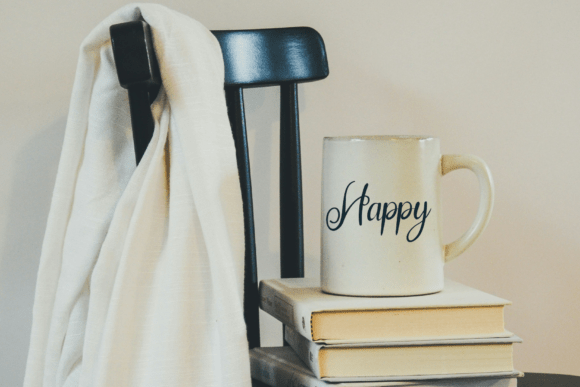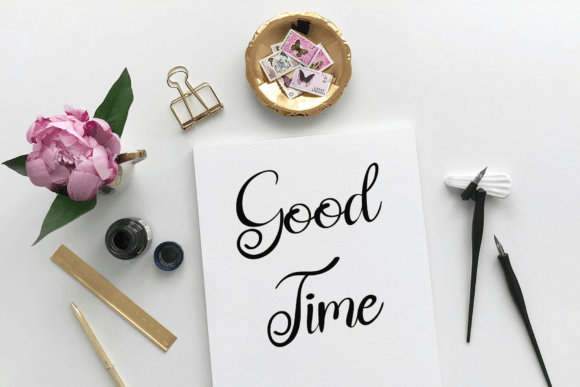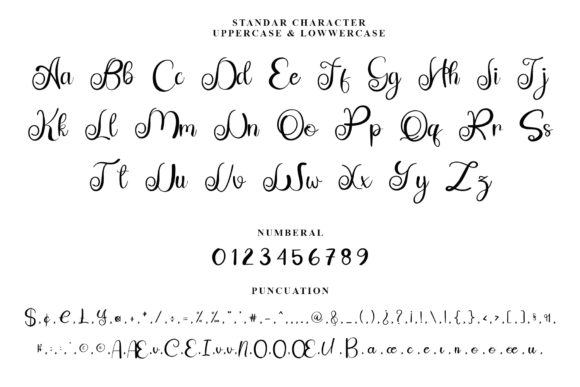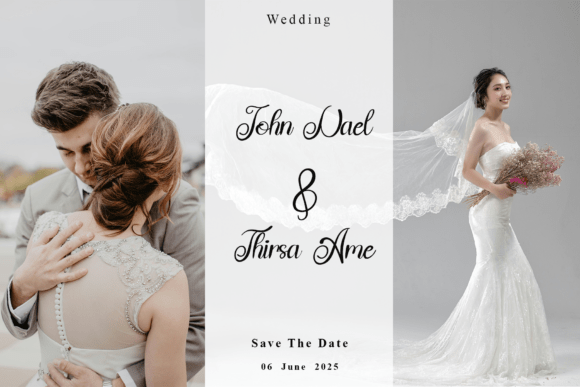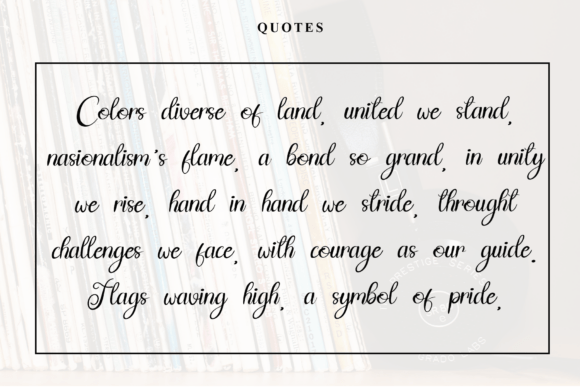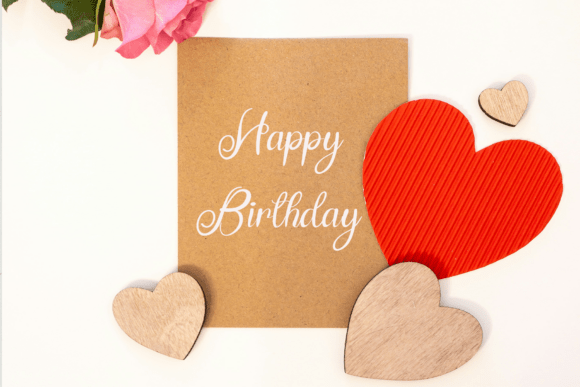
The Power of Handwritten Elegance: Unleashing the Aesthetic Font
Remember the feeling of dipping your pen in ink and letting your creativity flow onto the page? The scratch of the nib, the flow of the line, and the beauty of the imperfect – it’s a sensation that’s hard to replicate with digital tools. But what if you could capture that essence of traditional calligraphy in a modern, digital font?
Enter Aesthetic Font, a flowing handwritten font that marries grace with expressiveness. With its meticulously crafted characters, Aesthetic Font exudes an artful elegance that’s perfect for projects seeking a timeless and sophisticated touch. Whether you’re designing a wedding invitation, a branding campaign, or a personal art project, Aesthetic Font adds a refined, handwritten flourish that elevates your work to the next level.
Aesthetic Font Key Features
- Unique Characteristics: Distinctive letterforms, elegant curves, and subtle flourishes create a sophisticated and visually appealing aesthetic.
- Language Support: Includes comprehensive language support for Latin-based alphabets, including accented characters and diacritics.
- Kerning and Ligatures: Advanced kerning and ligature features ensure smooth text flow and enhanced readability, particularly in long blocks of text.
A Designer’s Review of Aesthetic Font
I recently had the chance to work with Aesthetic Font, and I must say, it’s a beautiful addition to any design project. ✨ The font’s elegant curves and delicate details make it perfect for creating a luxurious and sophisticated atmosphere.
- ✨ Beautifully crafted letterforms with intricate details.
- ✨ Suitable for both print and digital design.
- ✨ Elegant and sophisticated, making it perfect for high-end brands.
However, I did encounter a few limitations:
- ⚠️ Not ideal for body text, as it can be difficult to read at smaller font sizes.
- ⚠️ May not be suitable for modern or minimalist designs.
Overall, I’m impressed with Aesthetic Font’s beauty and versatility. While it may have its limitations, it’s perfect for creating a luxurious and sophisticated atmosphere in your designs. I would definitely recommend it for high-end branding and design projects.
For optimal results, use Aesthetic Font in conjunction with clean and minimal design principles.
- Typography-based designs, such as posters and flyers.
- Web design, particularly for landing pages and blogs.
- Social media graphics and advertising.
Experiment with different font sizes, colors, and styles to create a unique and eye-catching aesthetic.
Alternatives to Aesthetic Font for Designers
Great Vibes is a modern, elegant script font perfect for adding a touch of sophistication to your designs. Use it for titles, headings, and quotes to create a beautiful, handwritten feel. It’s ideal for creative projects, such as magazine covers, wedding invitations, and social media graphics.
Compared to Aesthetic Font, Great Vibes has a more refined, polished look, making it suitable for formal and professional designs. Aesthetic Font, on the other hand, has a more casual, cursive feel.
Pacifico is a beautiful, elegant script font that exudes a sense of luxury and sophistication. Use it for titles, headings, and body text to create a stunning, high-end look. It’s perfect for designs that require a touch of elegance, such as luxury brand identities, high-end product packaging, and fine art prints.
Compared to Aesthetic Font, Pacifico has a more refined, classic look, making it suitable for formal and professional designs. Aesthetic Font, on the other hand, has a more casual, handwritten feel.
Carolyna Pro is a modern, elegant script font that’s perfect for adding a touch of sophistication to your designs. Use it for titles, headings, and body text to create a beautiful, high-end look. It’s ideal for creative projects, such as magazine covers, fashion brand identities, and product packaging.